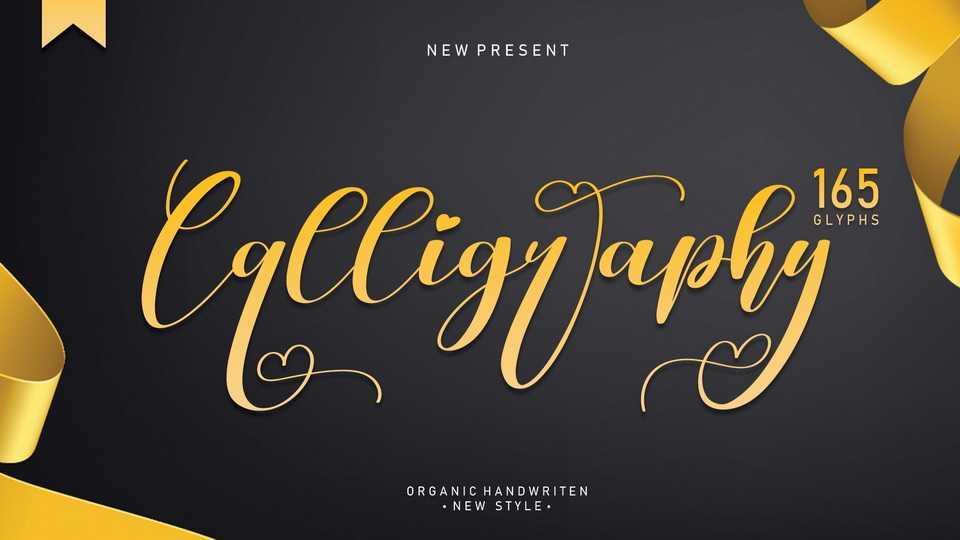
Download Calligraphy font, a beautiful and romantic script typeface. Calligraphy font has a classy, elegant and modern look that can be used for logos, branding, Valentine and wedding cards, merchandise and social media.